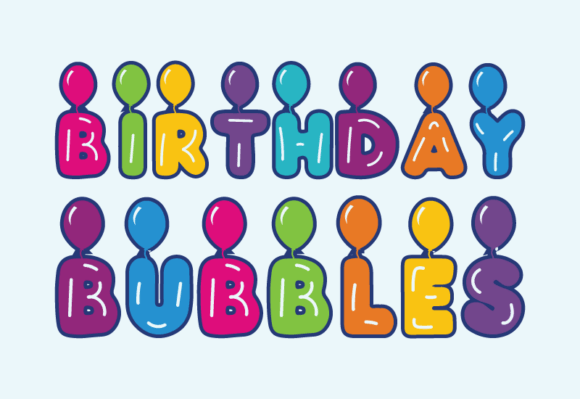
The Birth of a Masterpiece: Unleashing the Magic of Birthday Bubble Font
I’ll never forget the time I was working on a birthday card design for a client’s kid. I had the perfect concept, the colors were on point, but something was missing – a font that would make the whole design pop. I scoured through font libraries, but nothing seemed quite right. That’s when I stumbled upon Birthday Bubble, an enchantingly decorative bubble font that instantly elevated my design to a whole new level. In this article, I’ll share with you why Birthday Bubble is a game-changer for creative projects and how you can make the most of its unique charm.
Here’s what makes Birthday Bubble a standout font:
• ✨ Attention-grabbing: This font commands attention, turning even the simplest idea into a masterpiece.
• ✅ Versatility: Birthday Bubble lends its unique charm to various projects, from birthday themes to other jubilant celebrations.
• 🎉 Joyful exuberance: Every letter is a celebration on its own, infusing an air of joyful exuberance in every project it graces.
Now, I’m not saying it’s perfect. Here are a few quirks to keep in mind:
• 🤔 Legibility at small sizes: Birthday Bubble can be a bit tricky to read at smaller font sizes, so make sure to test it out before finalizing your design.
• ⚠️ Overuse: While it’s tempting to use Birthday Bubble for every element in your design, remember that sometimes less is more. Balance it with simpler fonts for a more harmonious look.
The Story Behind Birthday Bubble: A Designer Inspiration
Legend has it that Birthday Bubble was born out of a designer’s desire to create a font that would capture the essence of joyful celebrations. With a passion for typography and a love for parties, the designer poured their heart and soul into crafting a font that would make every letter a celebration on its own. And so, Birthday Bubble was born – a font that’s equal parts playful, whimsical, and festive.
What makes Birthday Bubble unique? Its enchanting, bubble-like design and joyful exuberance make it perfect for celebratory designs.
Is Birthday Bubble easy to read? While it’s designed to be attention-grabbing, Birthday Bubble can be a bit tricky to read at smaller font sizes. Test it out to find the right balance for your design.